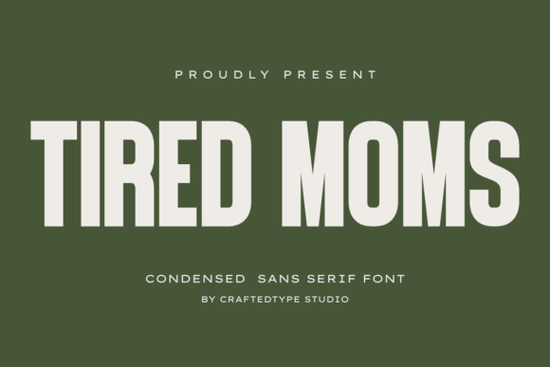
When you are designing merchandise for parents or creating minimalist branding, the right typeface makes all the difference. The Tired Moms font is a sleek, condensed sans serif that gives your projects a clean, modern look. Its tall, narrow letterforms and elegant spacing work beautifully for print-on-demand items, social media graphics, and packaging. If you need a typeface that balances professional structure with a playful touch, this is a solid choice for your creative toolkit.
What makes this typeface stand out for print-on-demand?
When you are selling t-shirts, mugs, or tote bags, your text needs to be readable from a distance. The condensed structure of this font allows you to use larger, bolder text without it spilling off the edge of your canvas. This is especially useful for relatable mom-life quotes that need to make a quick visual impact on a busy social media feed or a crowded marketplace. Because the letterforms are tall and narrow, you can fit longer phrases on a single line, which is perfect for the limited space on a coffee mug or a pocket-sized t-shirt design.
If you are building a collection of parenting merchandise, having a versatile typeface saves time. You can pair it with softer scripts or use it alongside other clean lettering styles to create balanced, professional layouts for your shop. It also works wonderfully for cinematic visuals and film titles, where a strong, narrow text block adds dramatic tension to the screen.
How well does it work for branding and packaging?
Minimalist branding relies heavily on typography. Since this typeface strips away unnecessary details, it gives logos and brand marks a contemporary, high-end feel. It works particularly well for modern packaging where negative space is just as important as the text itself. Think about a sleek skincare label or a minimalist coffee bag; the narrow letterforms allow the design to breathe while still delivering the brand name clearly.
For small businesses, consistency is key. You can use the same font across your website headers, product labels, and social media templates. The elegant spacing ensures that even when used in all-caps for a logo, the letters remain distinct and easy to read. If you need a primary typeface for a boutique, a lifestyle brand, or a parenting blog, this condensed style provides a strong visual foundation without overwhelming the rest of your design elements.
What technical features should crafters know about?
Quick checklist for your next design session:
- Test your text in all-caps first, as condensed fonts often look striking and modern when fully capitalized.
- Increase the letter spacing slightly if you are using the font at smaller sizes to maintain readability on mobile screens.
- Pair it with a simple, rounded sans serif for body text to keep the overall design clean, accessible, and easy to read.